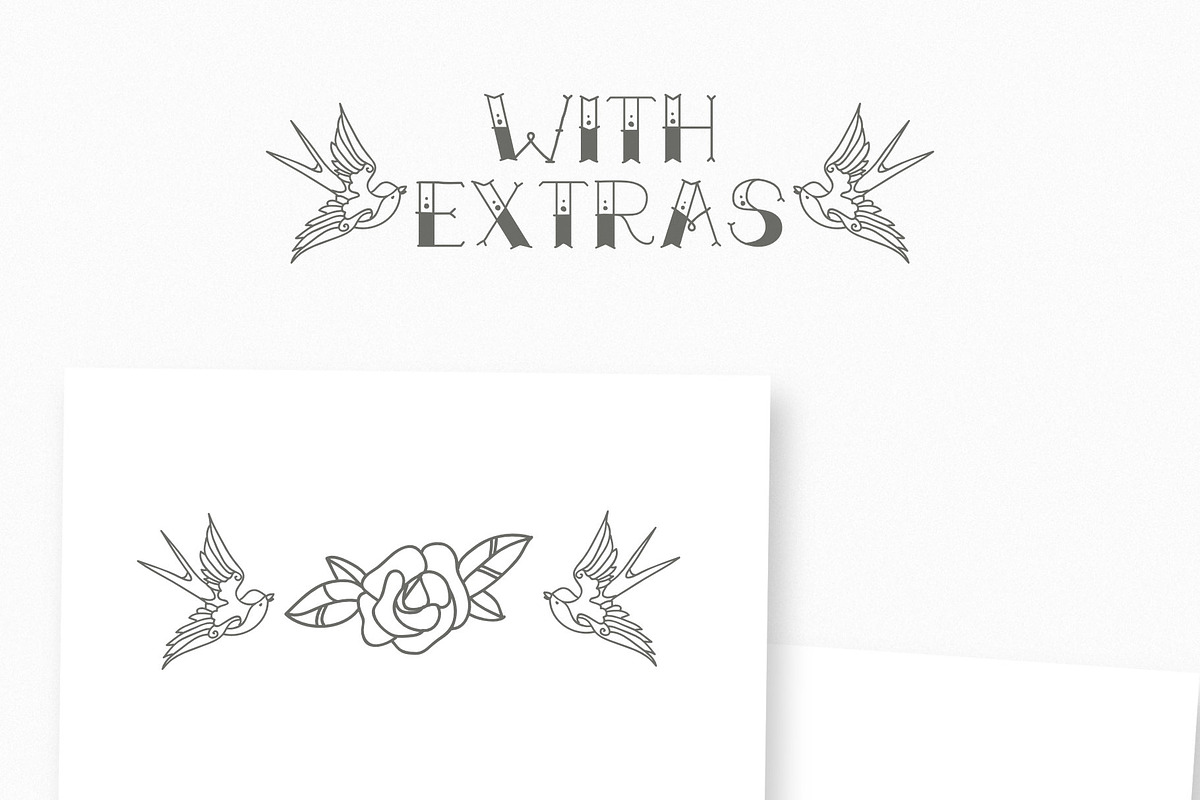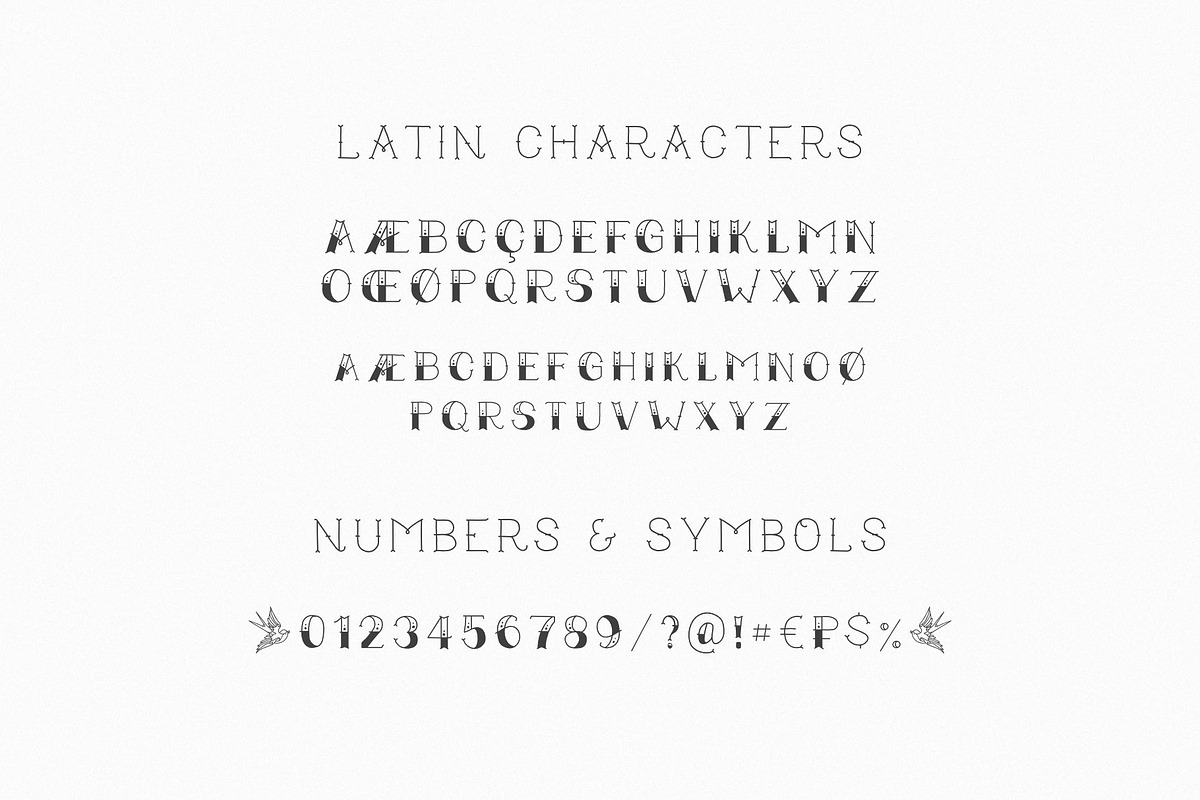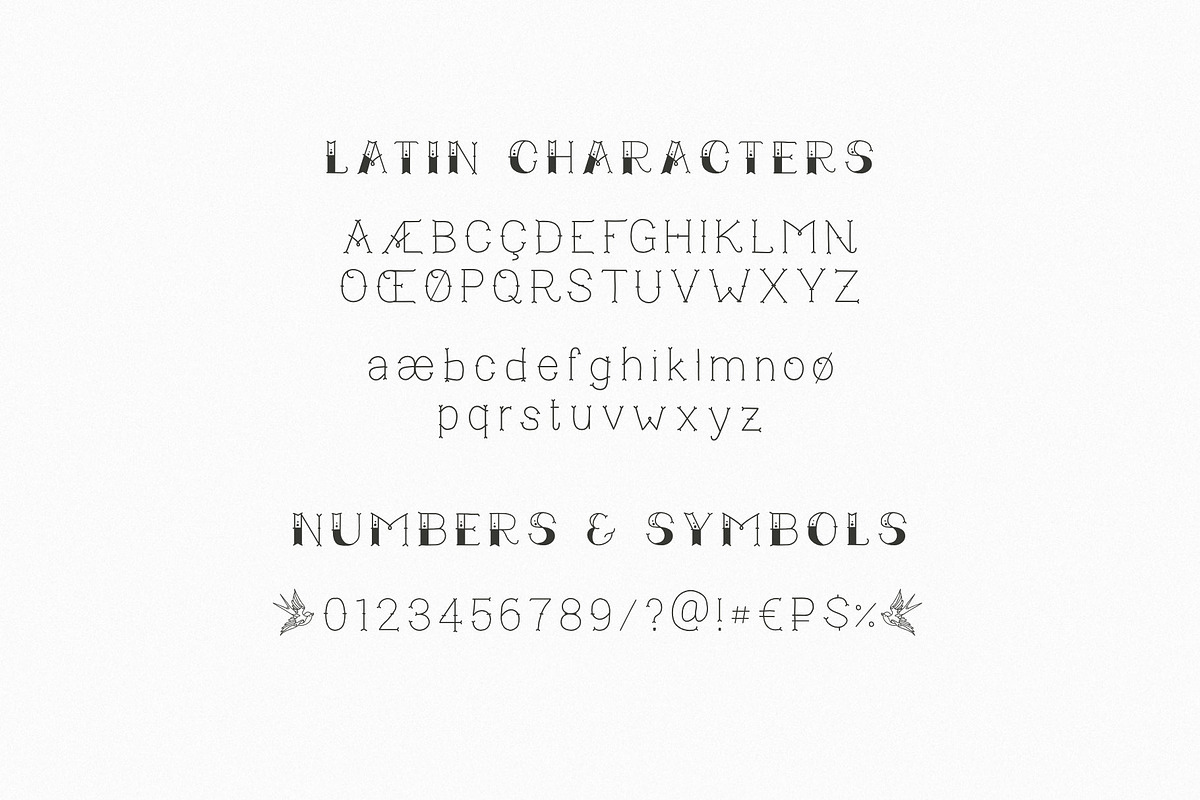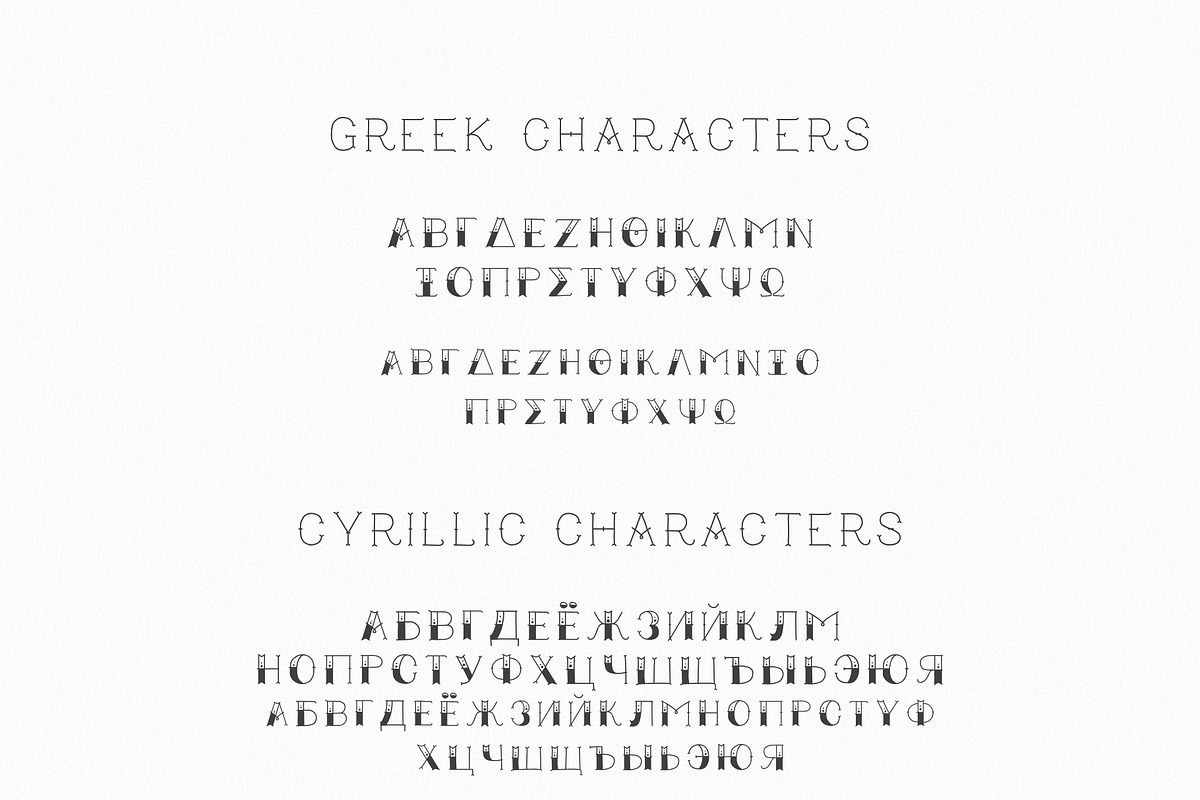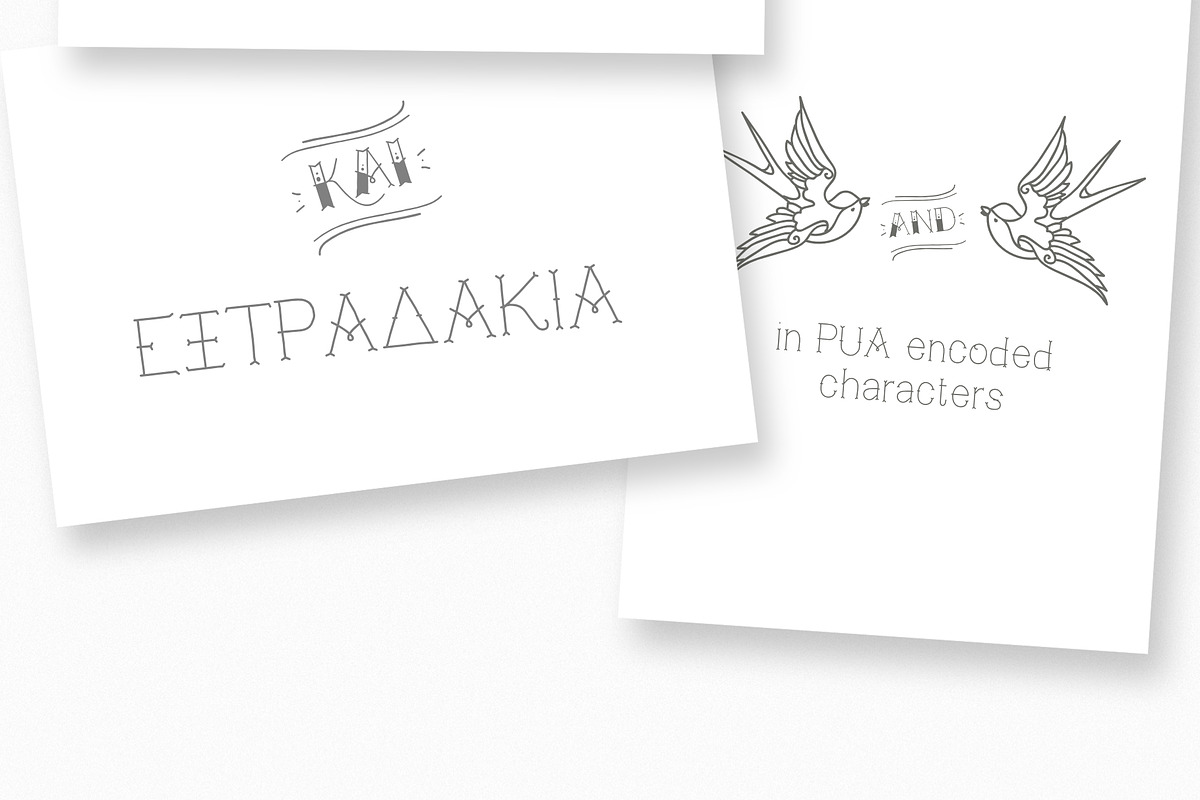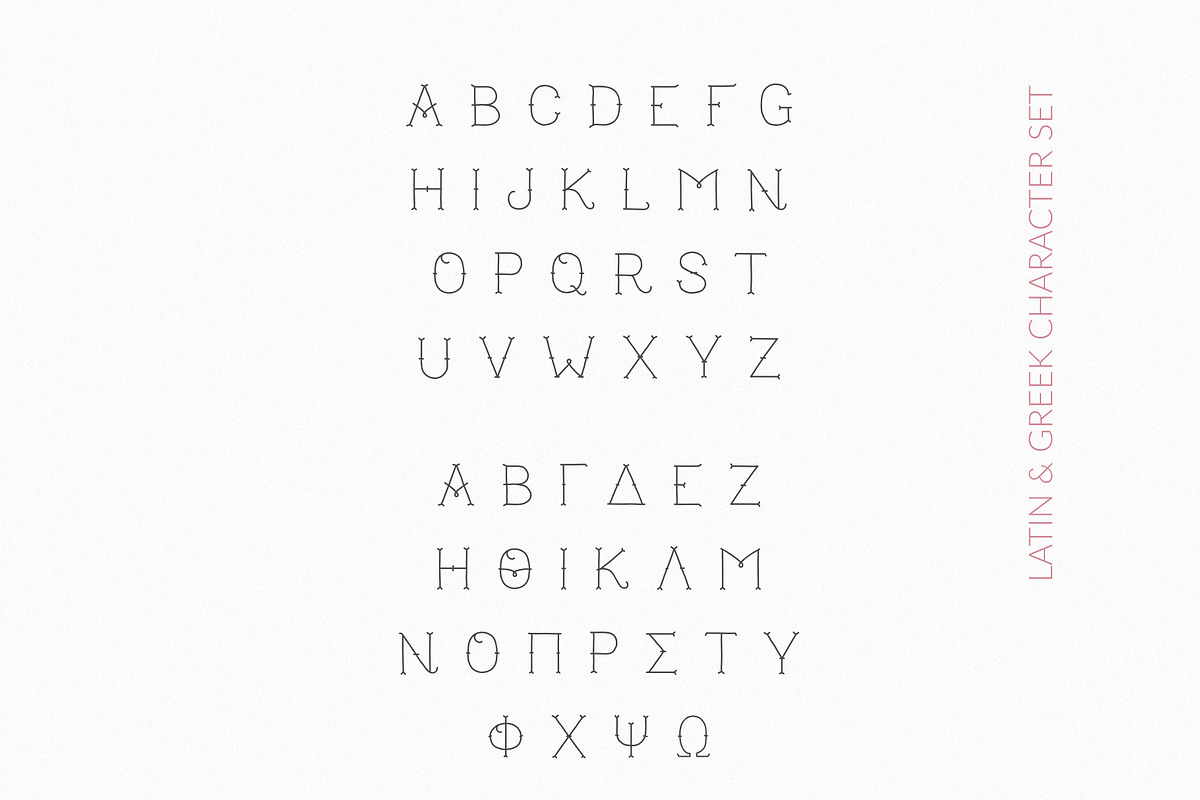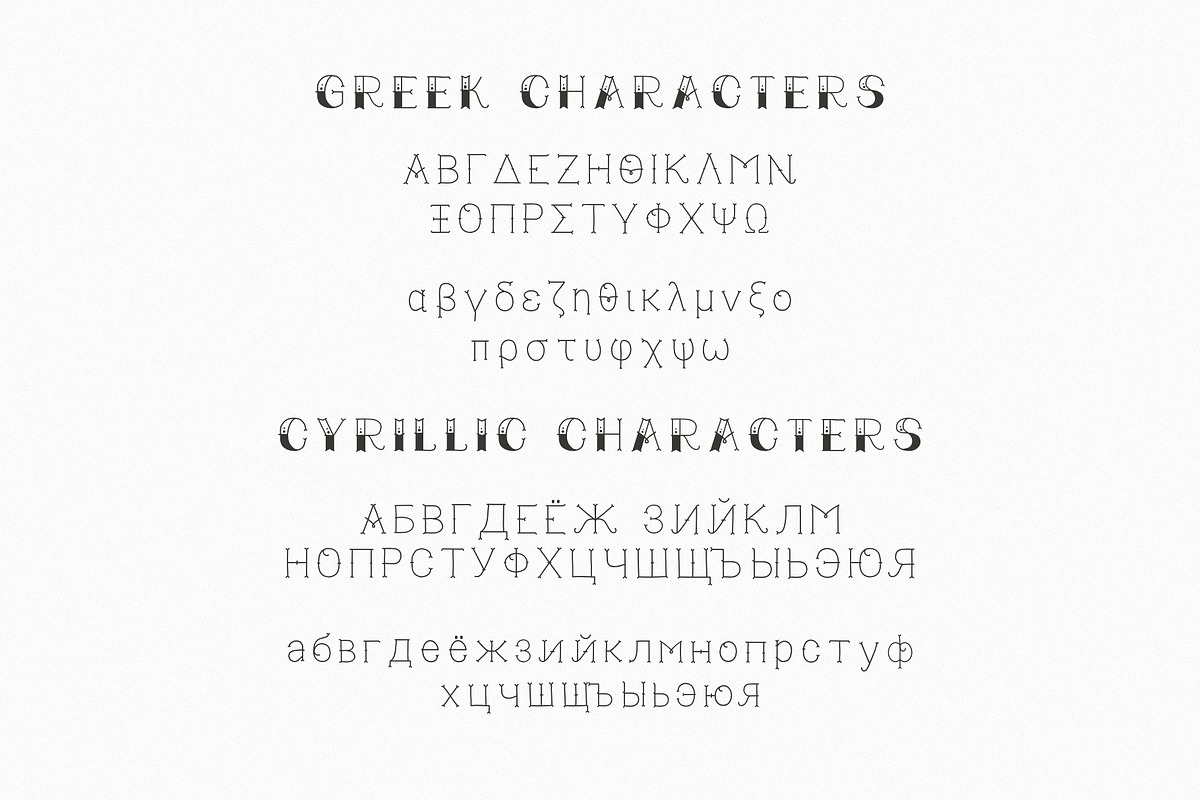
True Mama Cyrillic Typeface Greek
True Mama Cyrillic Typeface Greek by Greek fonts by nantia.co is a font selected for branding, posters, packaging, typography.
- Not only this typeface duo includes one monoline typeface with uppercase and lowercase characters, but also one bold version with only upper
- True Mama Cyrillic Greek Typeface Duo your multilingual old-school typeface duo!
Why True Mama Cyrillic Typeface Greek is worth a look
True Mama Cyrillic Typeface Greek by Greek fonts by nantia.co fits naturally into Branding, posters, packaging, typography.